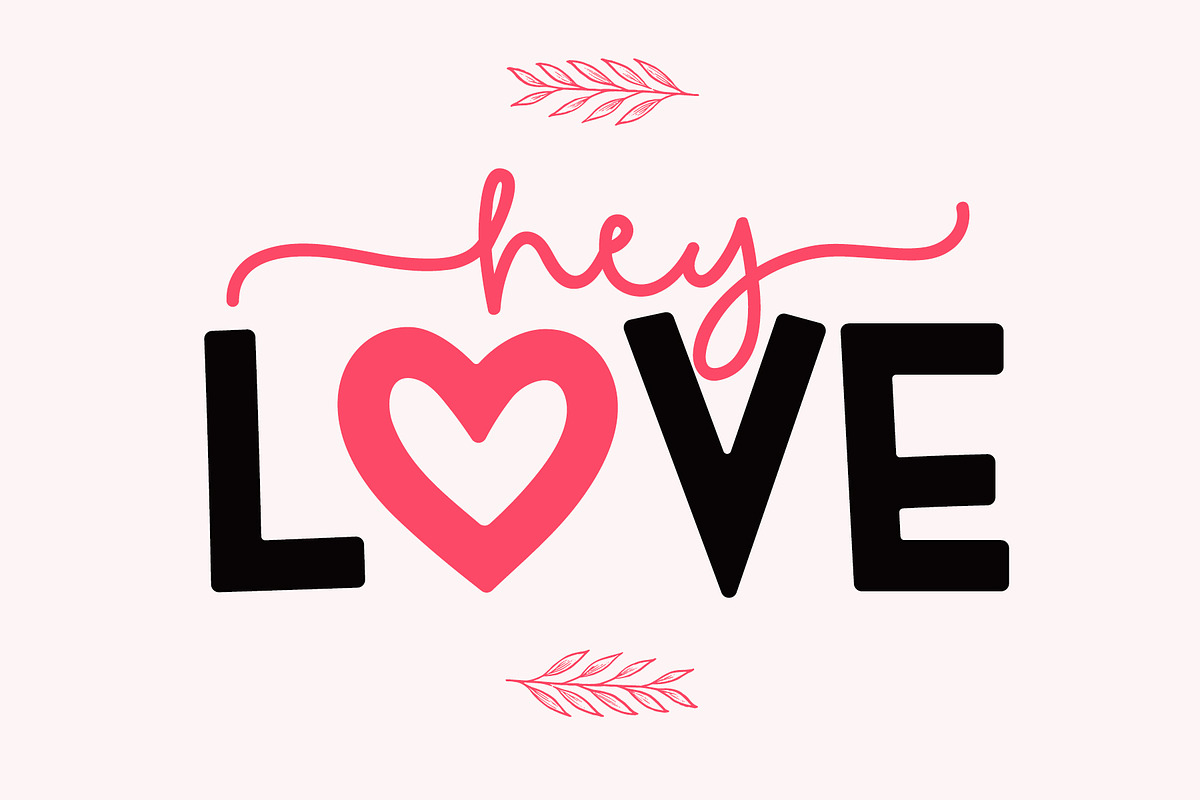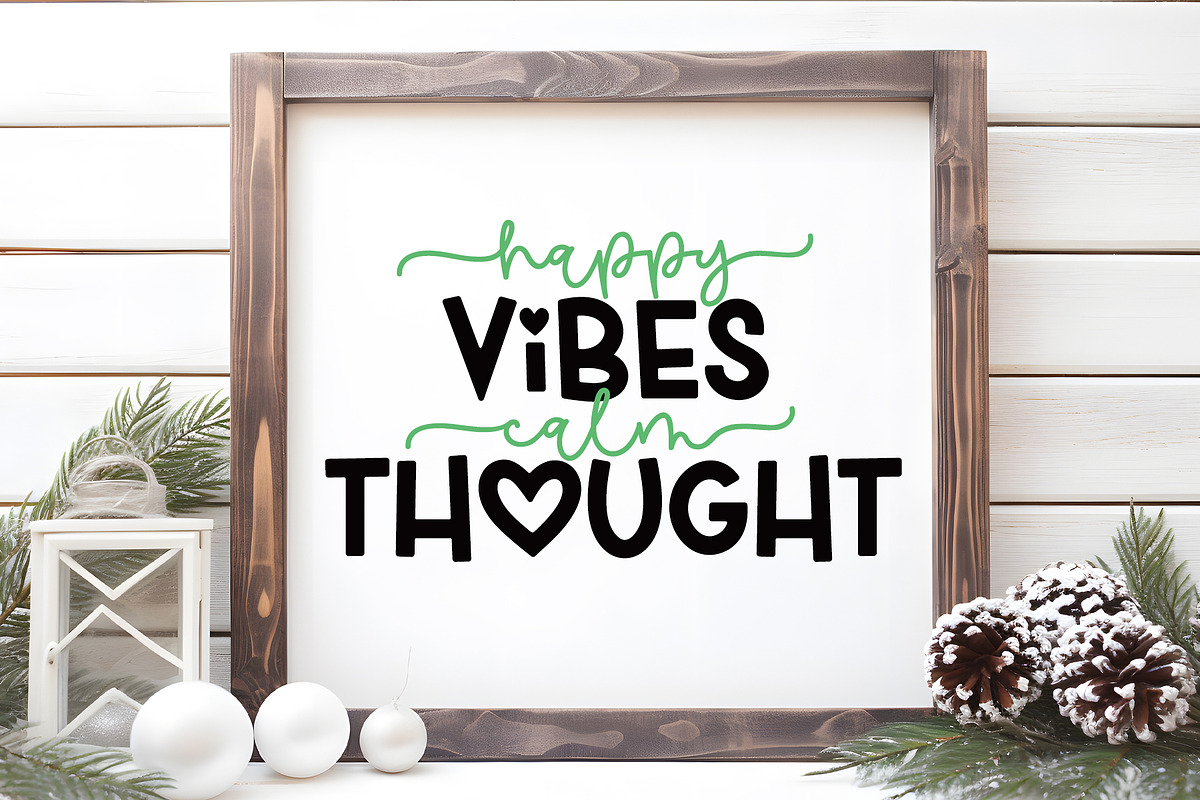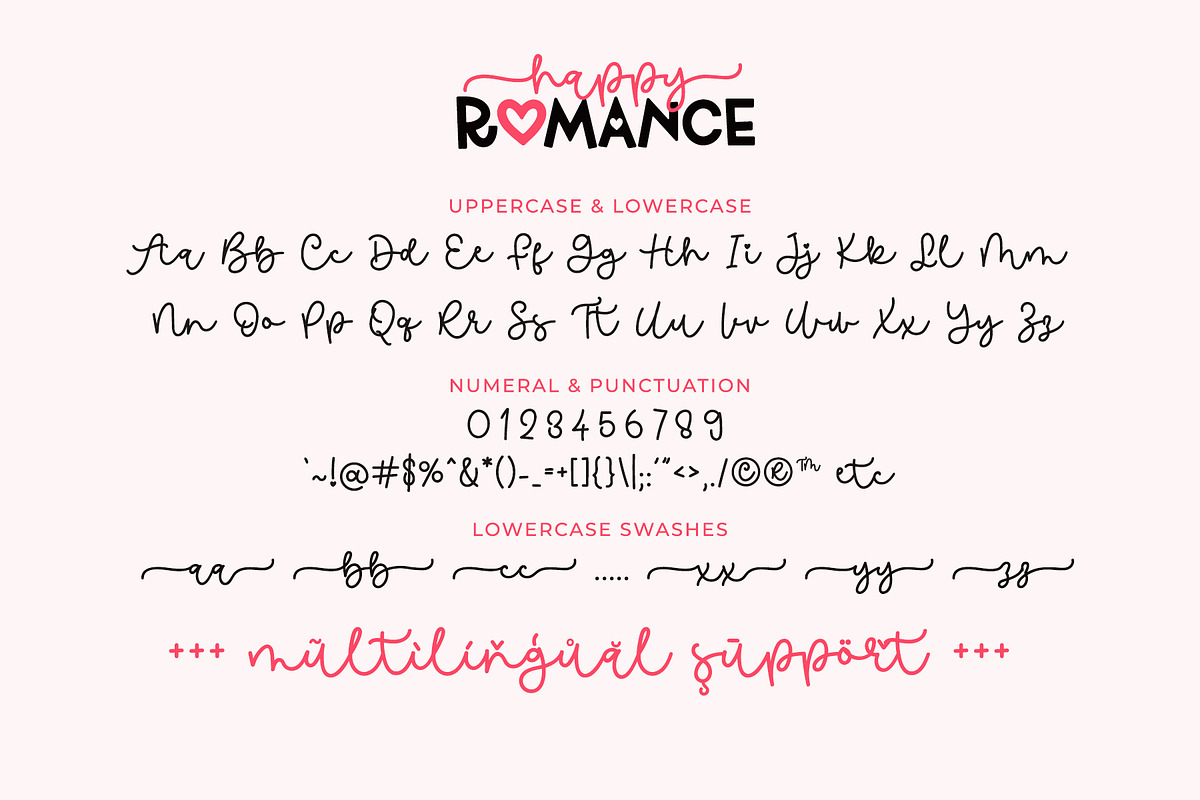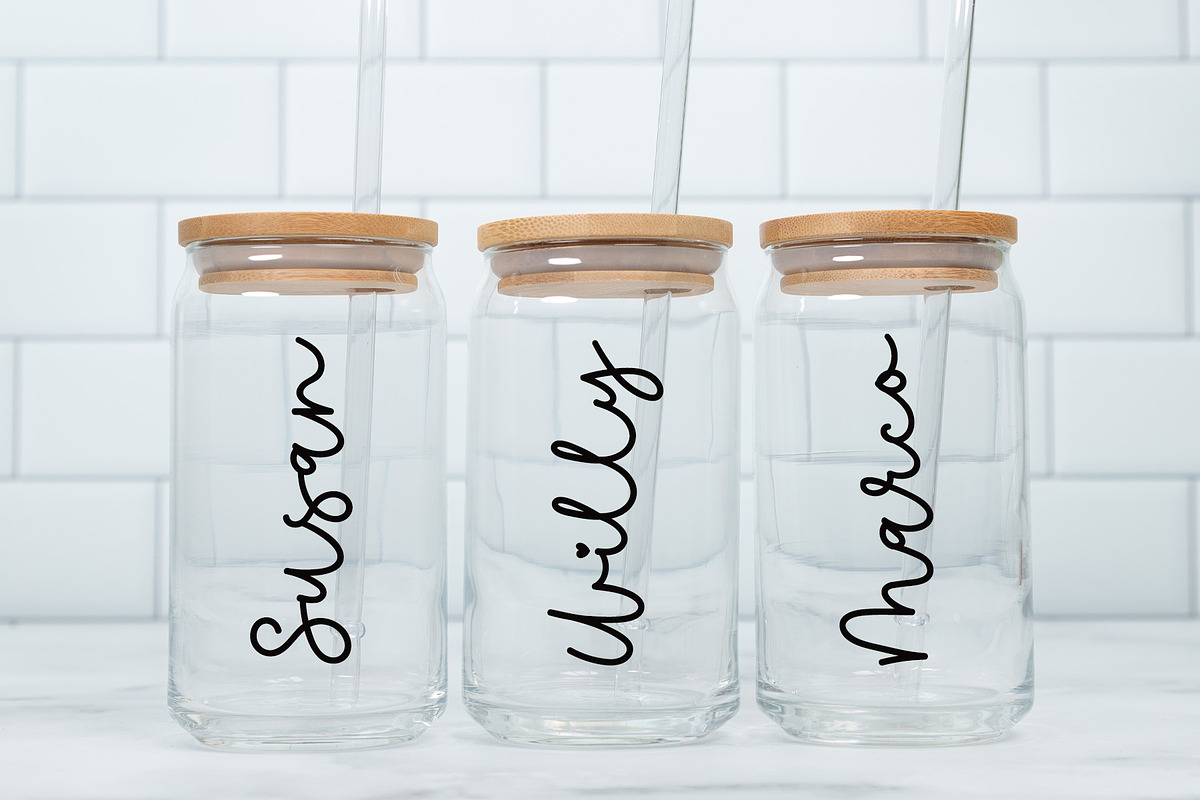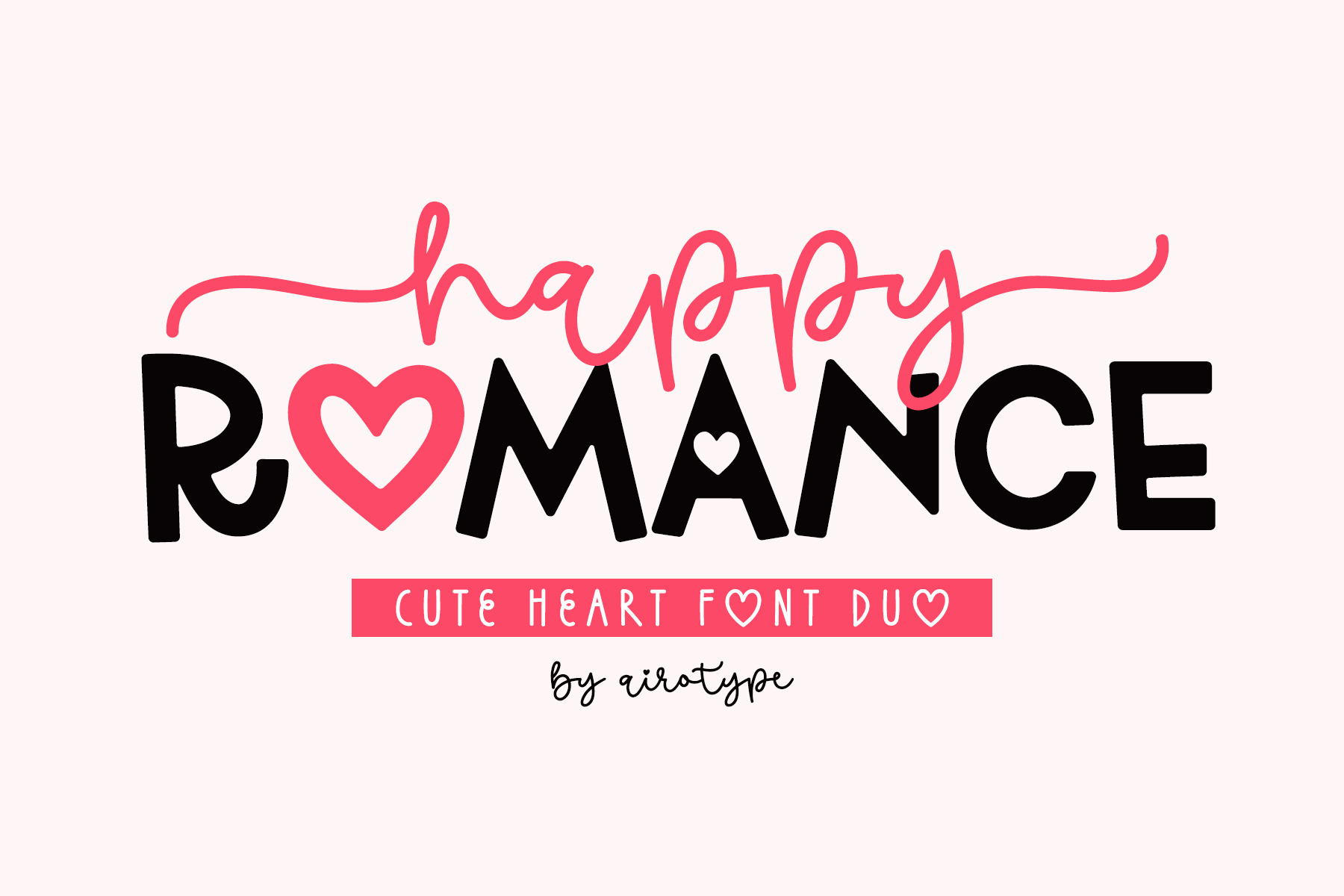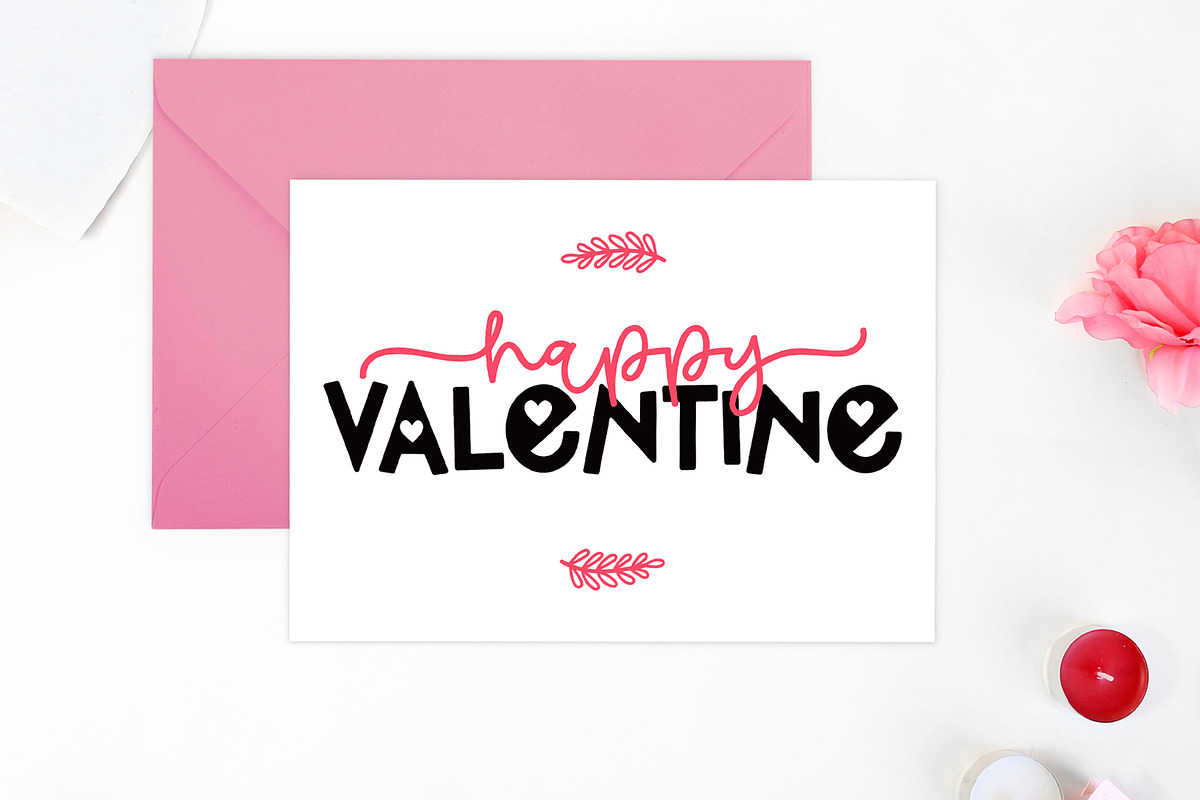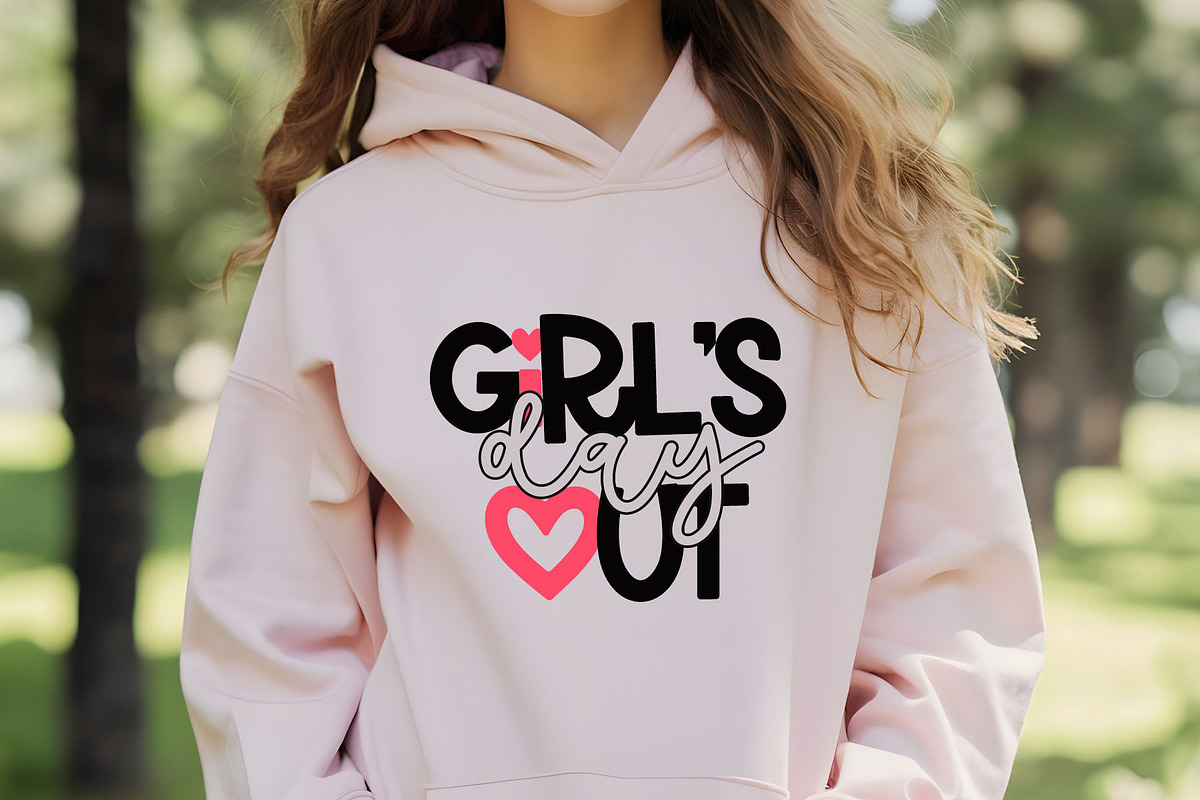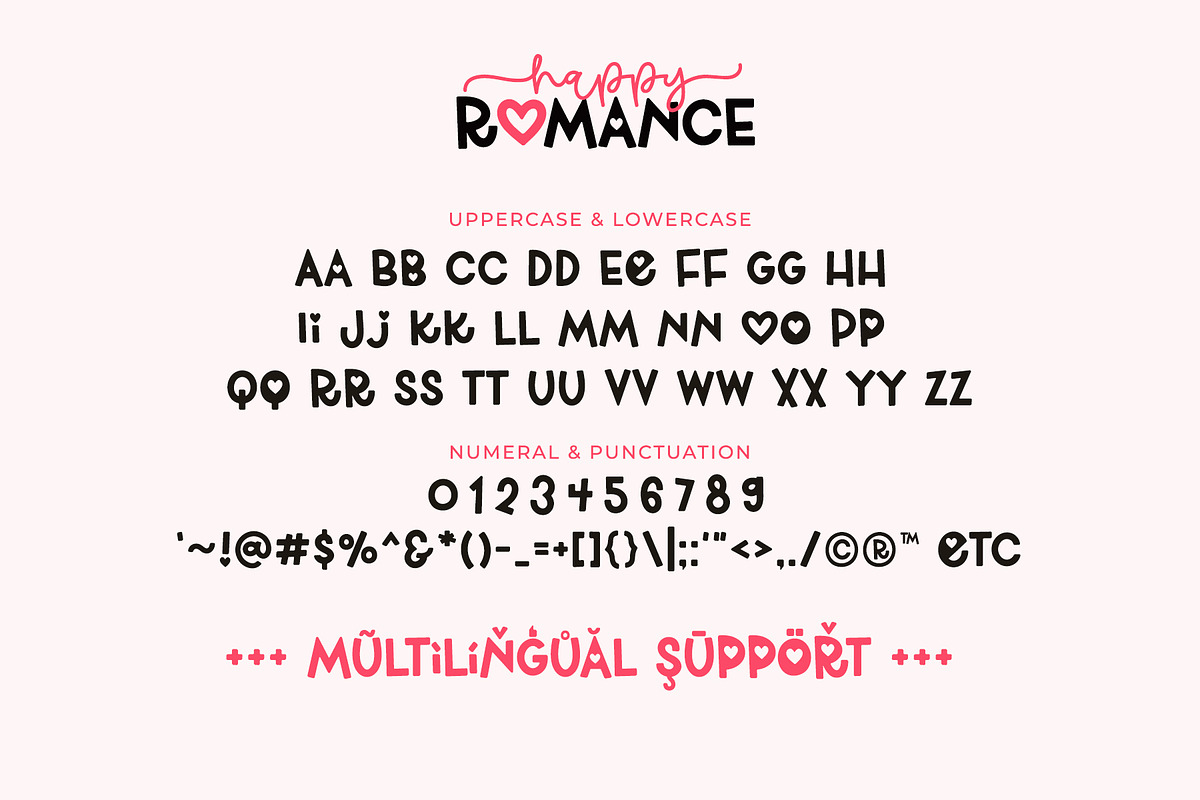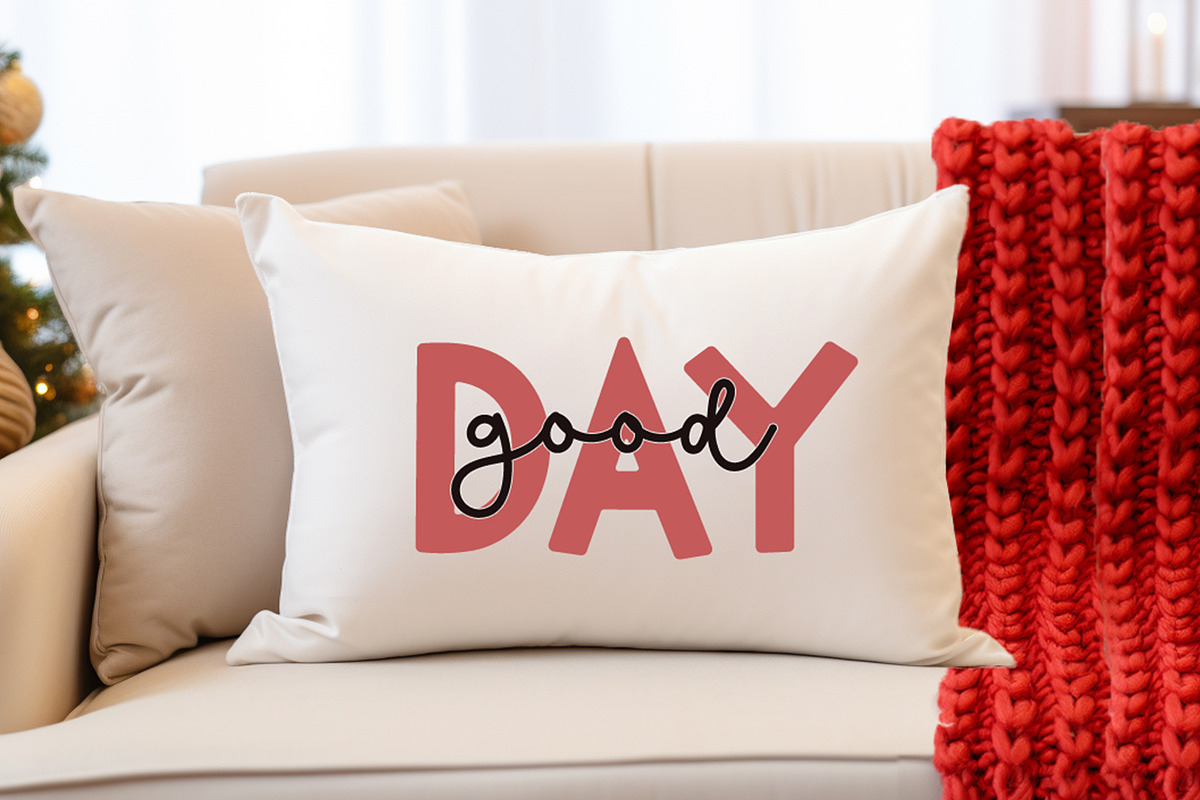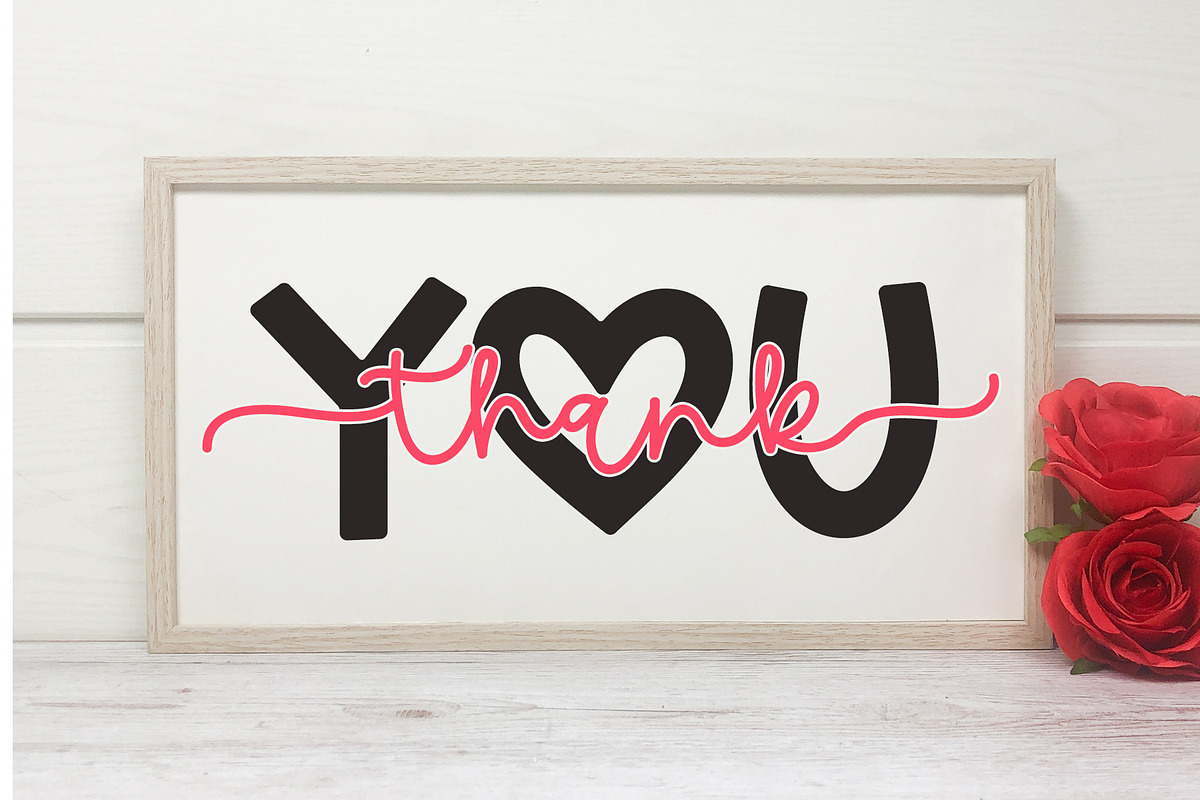
Happy Romance - Cute Heart Font Duo
Happy Romance is cute and festive font duo. This is bouncy, fun, and modern.
Happy Romance duo includes monoline script font (with swash) and all caps bold display font.
Happy Romance is lovely font for design with cute and romantic theme, such as valentines, t-shirt design, school design, holiday, birthday invitation, summer design, holiday, crafting, sticker, sublimation, and many more.
- Happy Romance Script: Uppercase & Lowercase (with lowercase swash)
- Happy Romance Sans: All Caps
- Most Multilingual Accent